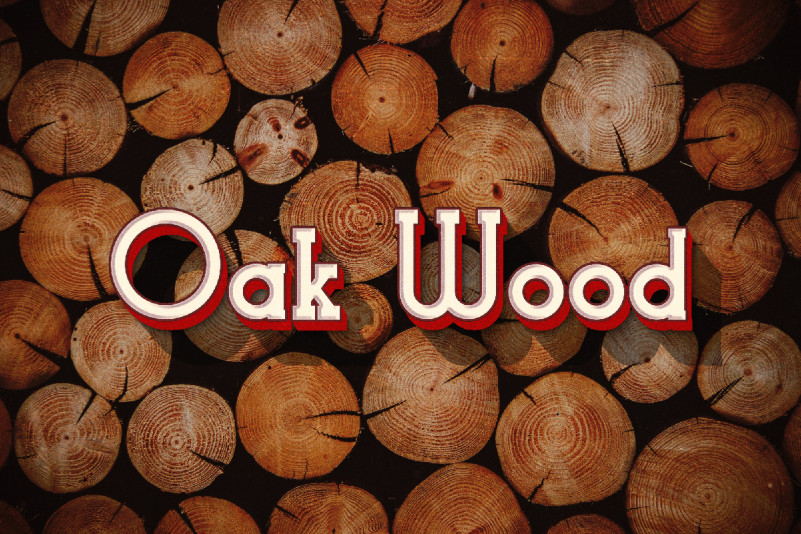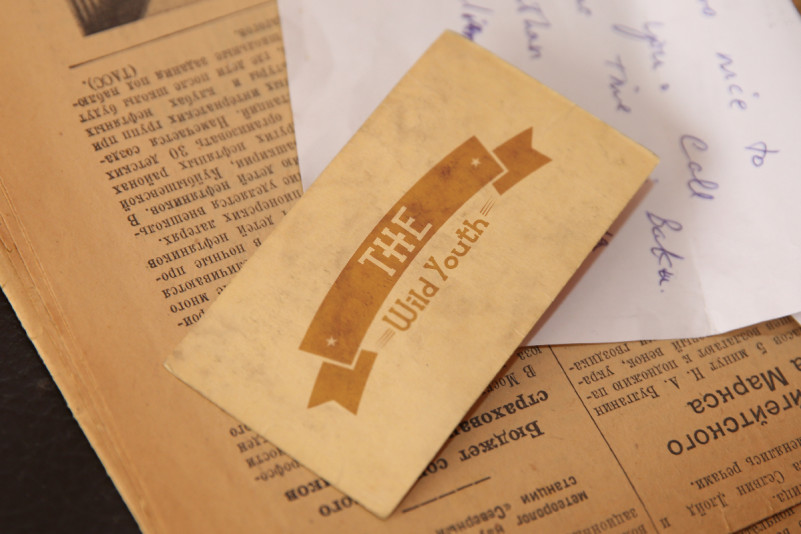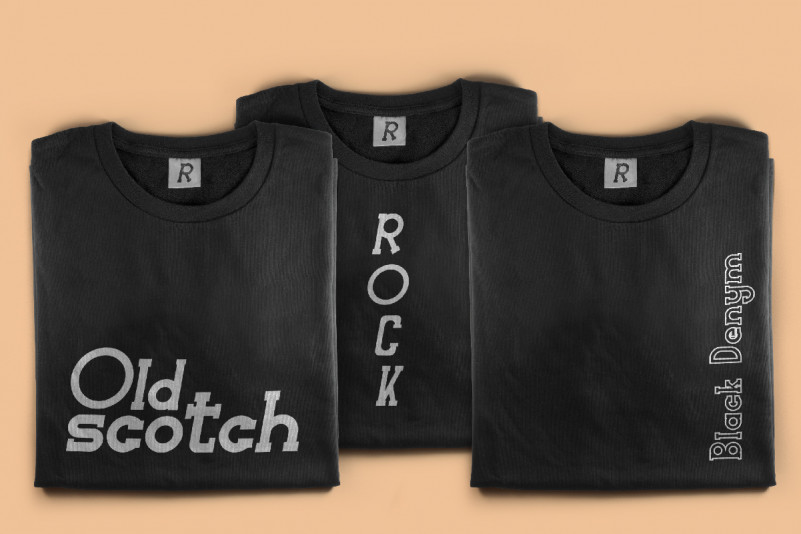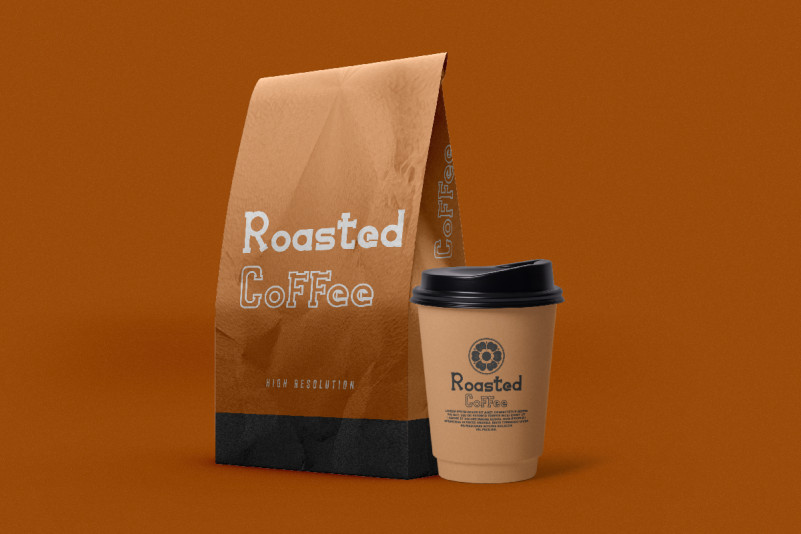
Not Wanted Slab Serif Font is a serif display font inspired from late american old style. This font has vintage characters and dated style that looks awesome in just about every context. Use it for logos, print, collage, body text, and more!
Not Wanted Slab Serif Font includes full set of Uppercase and Lowercase Basic Characters, Numerals and Punctuation. Also it contains ligatures to make it flowless characters to perfectly make awesome look that add more aesthetic fonts to perfect your extraordinary project. Not Wanted Font will be great for Use it for any project that needs a unique, authentic look! Perfect for branding, labels, headline, posters, websites and so much more!